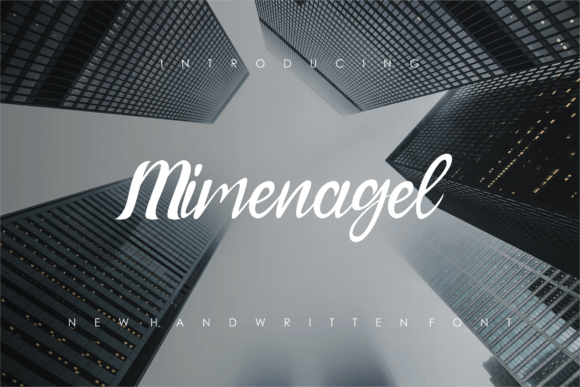
Mimenagel Font
Introducing Mimenagel Font, a captivating script font family designed to allure and enchant your creative endeavors. Inspired by the timeless art of calligraphy, kalingga.albert has meticulously crafted each letterform to evoke the essence of elegance and charm.
Step into a world of typographic wonder as Mimenagel graces your designs with its delicate strokes and refined curves. Experience the beauty of handwritten artistry seamlessly infused with the precision of digital craftsmanship.
Awaken your imagination and craft designs that resonate with warmth and personality. Mimenagel's versatility knows no bounds, effortlessly enhancing wedding invitations, thank-you cards, heartfelt quotes, greeting cards, logos, business cards, and any project yearning for a touch of handwritten elegance.
Immerse yourself in the world of Mimenagel and unlock endless possibilities. Its captivating allure will transform your designs into timeless masterpieces, leaving a lasting impression on all who behold them.